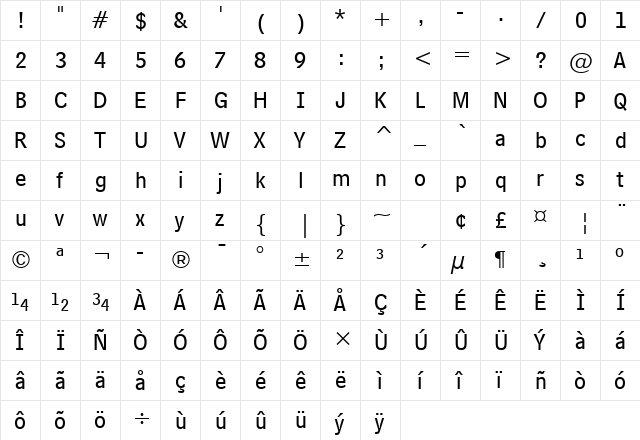
BellCent SubCap BT Sub-Caption
Design Context for BellCent SubCap BT Typeface
BellCent SubCap BT takes a measured approach to typography — its balanced proportions and neutral character make it a reliable workhorse for both digital and print work.